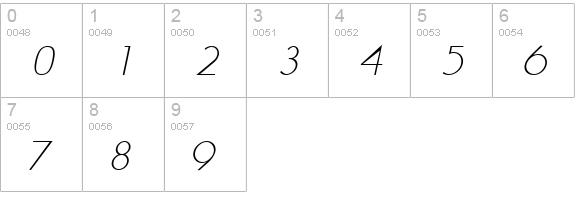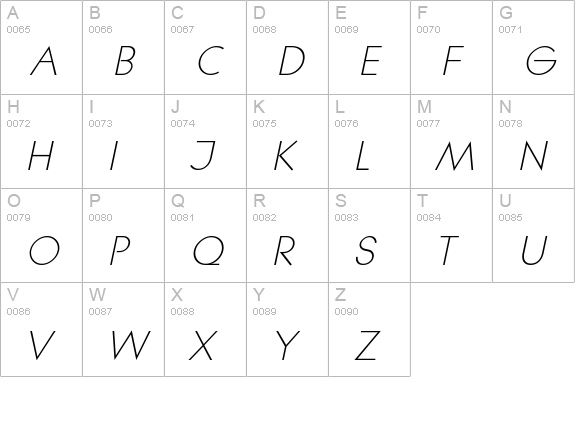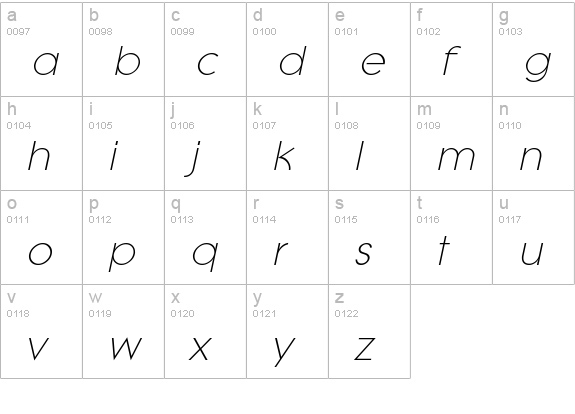
LitheLight Italic Font Details
LitheLight Italic is a distinctive, italic variant in the LitheLight typeface family \xE2\x80\x94 well suited to design and typography projects.
LitheLight Italic is a beautifully crafted font that exudes elegance and sophistication. Its delicate curves and graceful slant give it a sense of movement and fluidity, making it perfect for adding a touch of style to any design project. The italicized style adds a touch of flair and sophistication, making it ideal for use in headings, quotes, and other prominent text elements. What sets LitheLight Italic apart is not just its stunning design, but also the fact that it is available for free download at FontsMarket.com. This means that you can easily access this exquisite font without having to worry about any costs, making it a valuable addition to your font collection. Whether you're working on a personal project or a professional design, LitheLight Italic is sure to elevate your work with its refined aesthetic and timeless appeal.